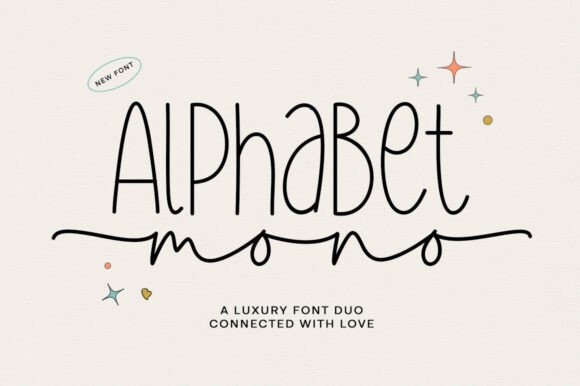
The Ultimate Guide to Alphabet Mono Duo Font: A Designer’s Best Friend
What is Alphabet Mono Duo Font?
Alphabet Mono Duo Font is a modern handwritten font that comes in two stylish variations. This carefully crafted font collection combines informal, romantic, sweet, and beautiful design elements with hand-drawn typography. It’s perfect for designing magazine previews and cover designs, logo designs, invitation cards, and other graphic needs.
The Good ✨
- 💕 Unique and eye-catching design: Alphabet Mono Duo Font stands out from the crowd with its distinctive handwritten style.
- ✅ Versatile: This font is perfect for various design projects, from logos to invitations.
- 🎨 Hand-drawn typography: The font’s hand-drawn elements add a touch of warmth and personality to your designs.
- 👍 Easy to read: Despite its unique design, the font remains clear and easy to read.
The Not-So-Good 🤔
- ⚠️ Limited use in small sizes: The font’s intricate design can become blurry when used in small sizes.
- 🤔 Some characters may require manual kerning: Depending on your design, you might need to adjust the kerning for certain characters.
- Experiment with the font’s OpenType features, such as glyphs and stylistic alternates, to add more personality to your design.
Designer Inspiration: The Story Behind Alphabet Mono Duo Font
The story behind Alphabet Mono Duo Font is one of passion and creativity. The font was designed by a team of typographers who wanted to create a unique and versatile font that would inspire designers to create something beautiful. The font’s hand-drawn elements and elegant design make it perfect for a wide range of design projects.
| Font Name | Alphabet Mono Duo Font |
Q: Is Alphabet Mono Duo Font suitable for body text?
A: While Alphabet Mono Duo Font is beautiful, it’s not ideal for body text. It’s best used for headings and titles.